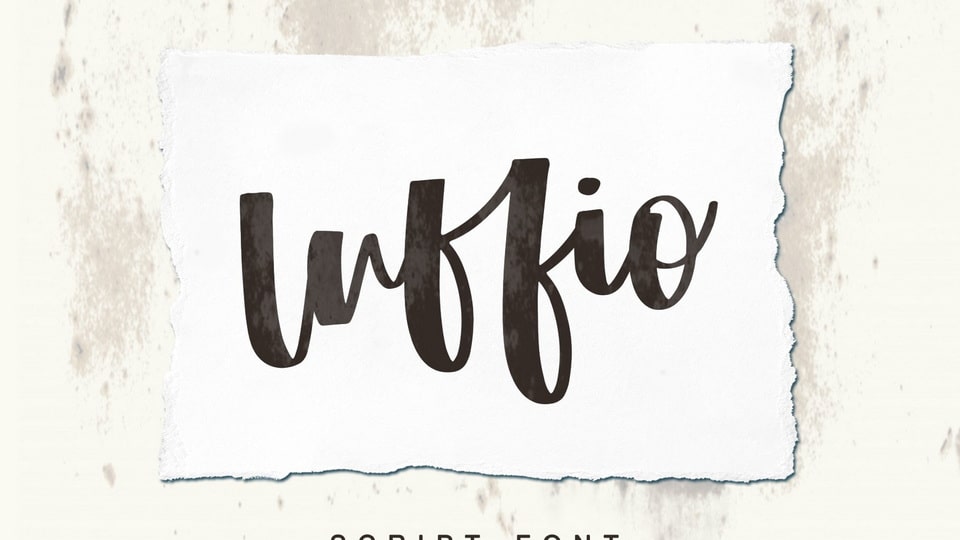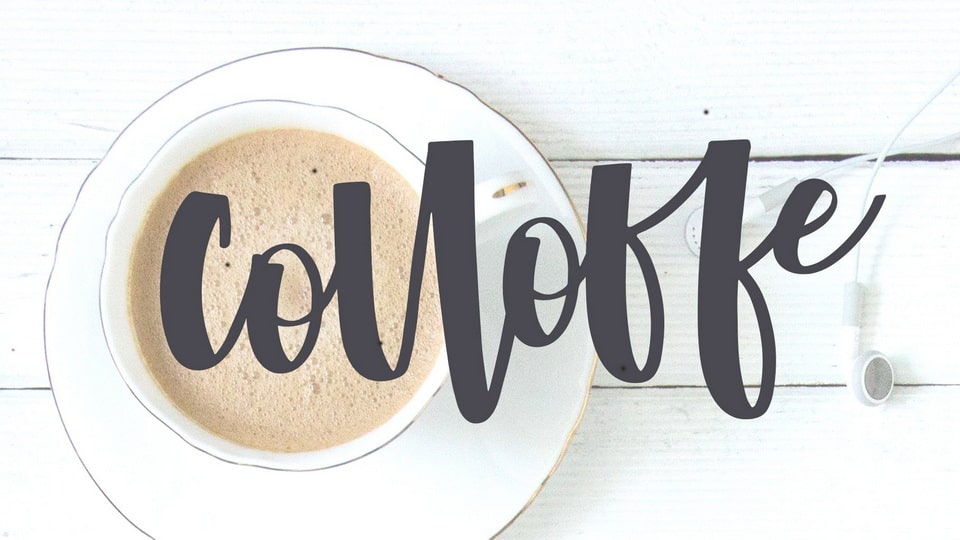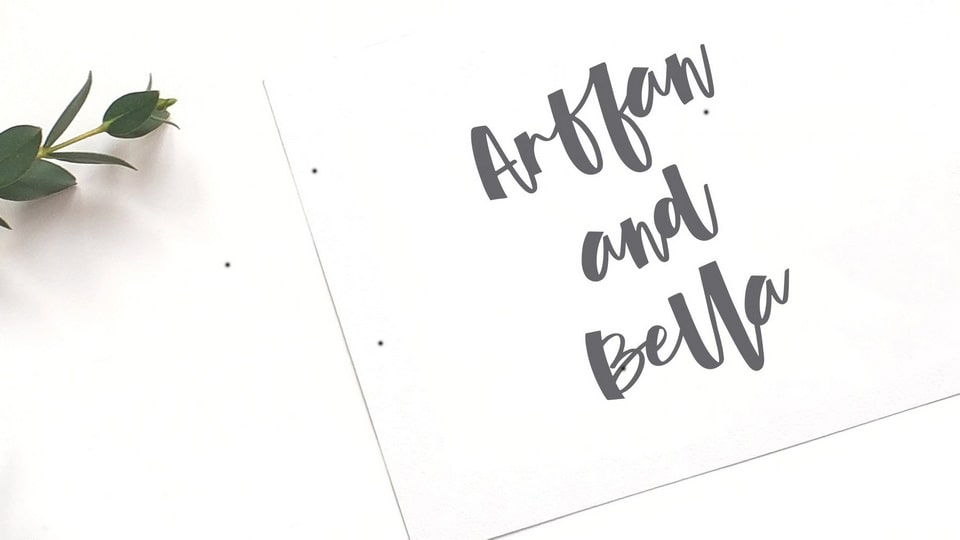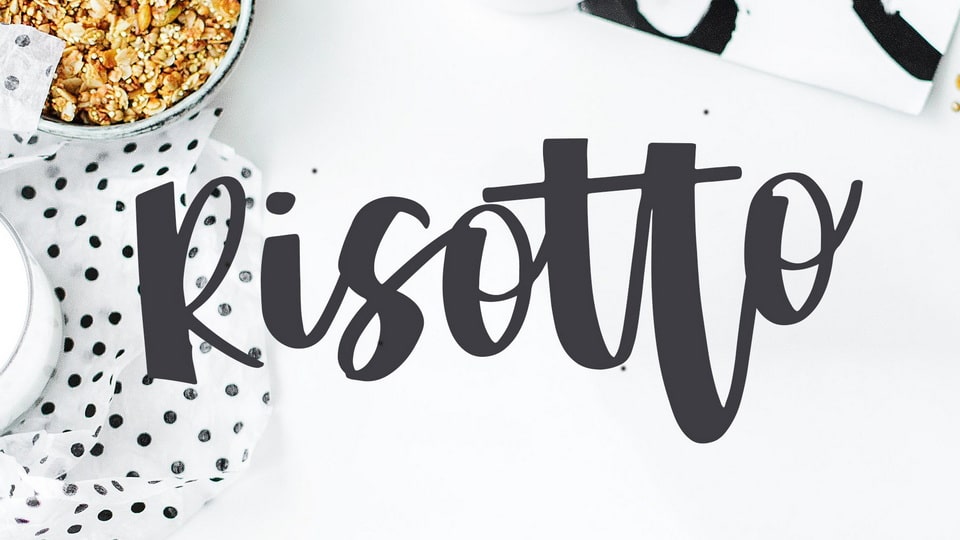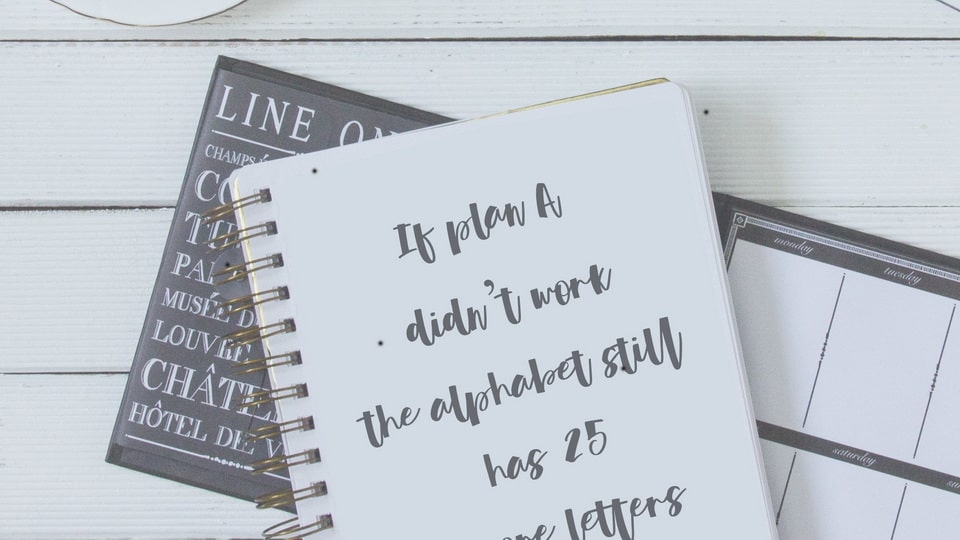
Luffio is a modern, elegant script typeface designed for versatility and readability. It features clean lines, a sleek appearance, and a slightly rounded structure that makes it suitable for various design projects, including branding, advertising, and web design.
Luffio’s contemporary style and legibility make it an excellent choice for both display and body text, providing a professional and sophisticated look to any content.